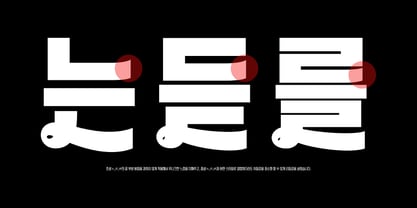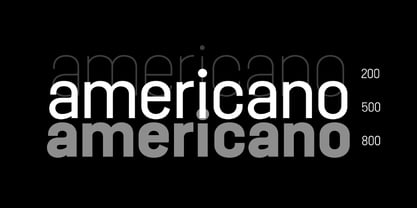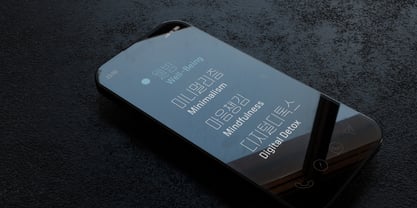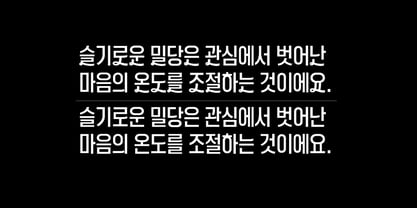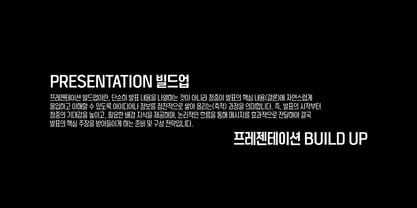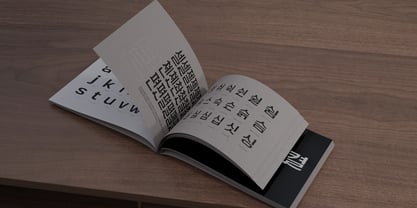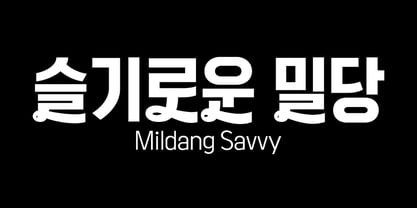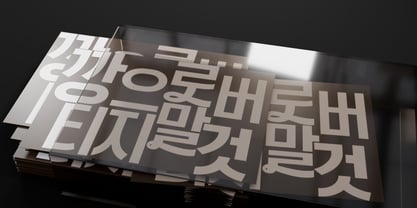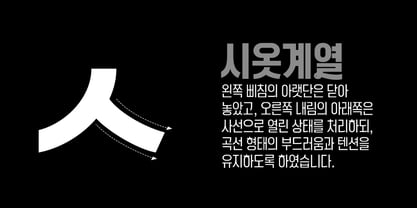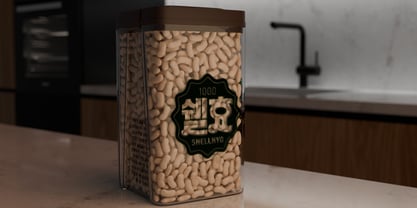
Mildang
The Mildang Font Family was designed by Ryul Davidson and published by Brenners Template. Mildang contains 14 styles and family package options. More about this family
Mildang is a Korean font family that includes extended Latin characters with a slightly narrow, semi-condensed style where the width of the letters is slightly smaller than their height. It was designed to incorporate a modern and simple balance between the initial, medial, and final consonants.
The Basic style is built on a clean and simple framework, with added unique flair through slight strokes and variations on some initial consonants (such as ㄴ, ㄷ, and ㄹ). It boasts a wide range of use, from headlines and titles to body text.
The ALT style adds a bright and cheerful feel through stylish variations on some of the final consonants (such as ㄴ, ㄷ, and ㄹ) and medial vowels (such as ㅗ and ㅛ) of the basic style. This subtle, unconventional touch was designed to be understated while focusing on rhythm.
With its trendy and lively feel, it can be widely used for various purposes like branding and logo design.